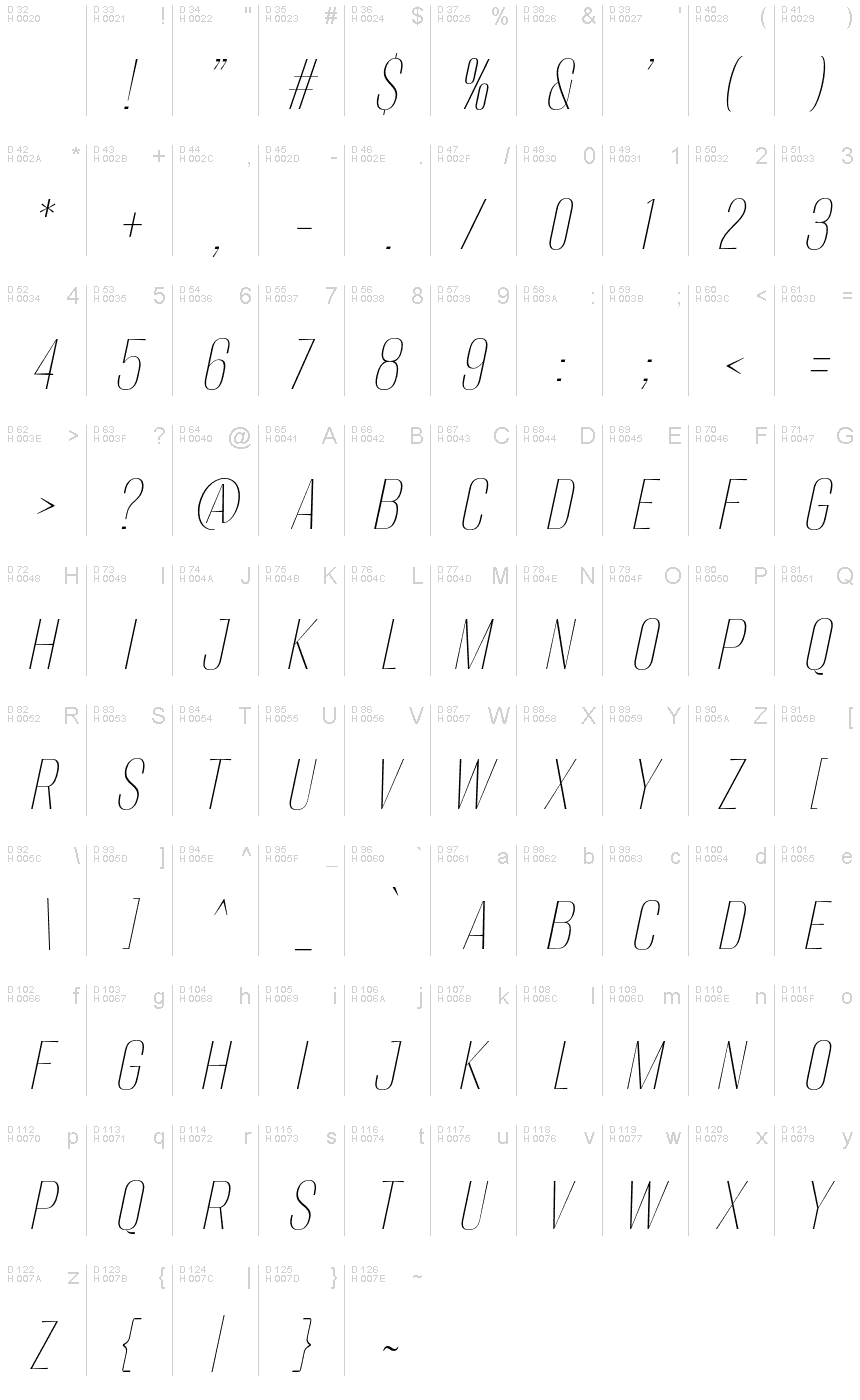
Migha-ThinCondensedSlant
The exquisite Migha Thin Condensed Slant font by Seniors Studio is a must-have for designers seeking an ultra-modern, sleek look. Its extra-condensed width and sans-serif style make it perfect for minimalist designs, while its ultra-light weight adds elegance and sophistication to any project. Whether you're designing a high-end fashion magazine or creating branding elements for a luxurious hotel, Migha Thin Condensed Slant is the font for you. Its unique slanted letters add an extra touch of personality and flair, making it suitable for everything from edgy music posters to upscale restaurant menus. Elevate your design game with Migha Thin Condensed Slant today!